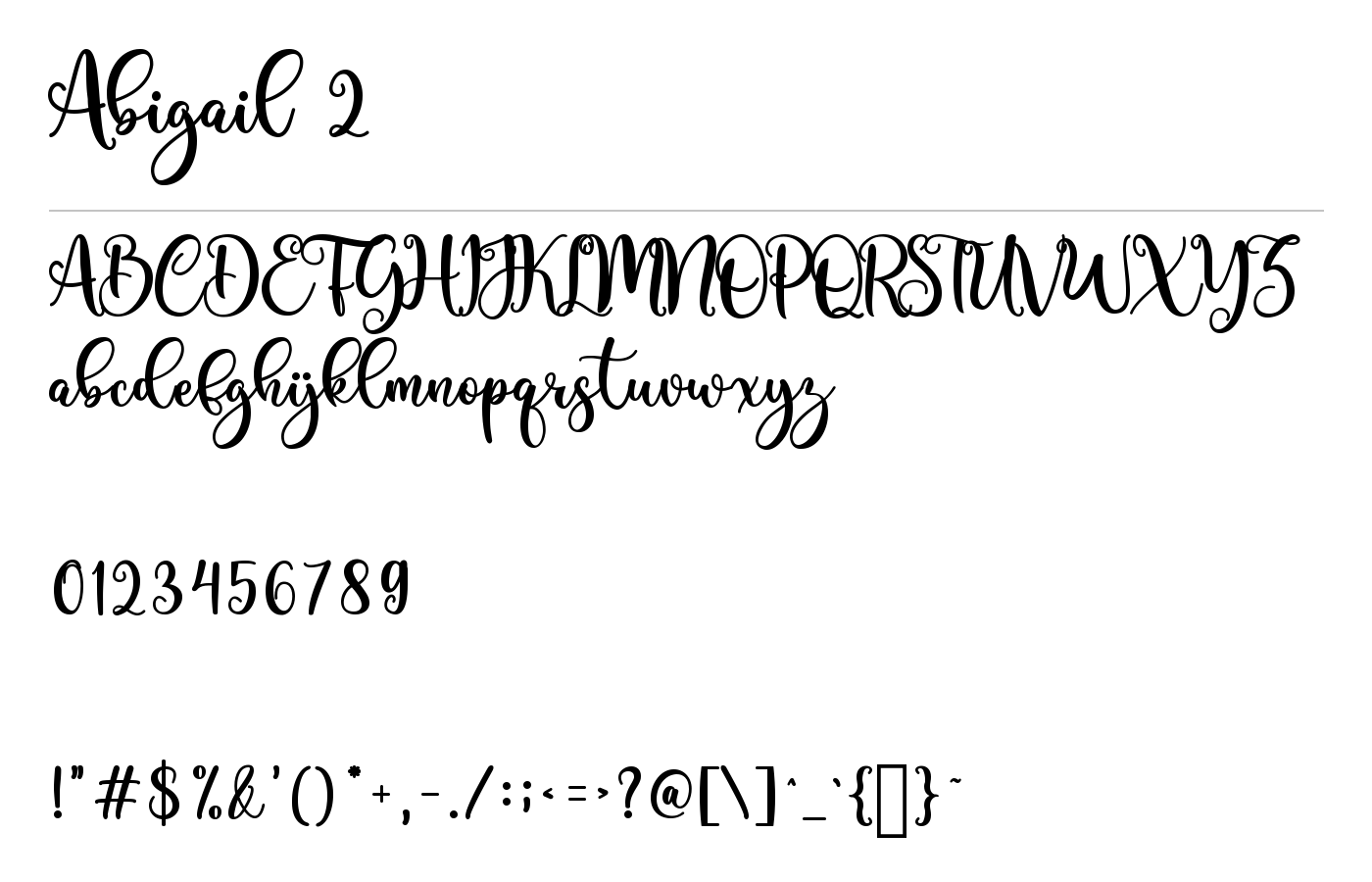
Abigail 2 is a charming script font with elegant, flowing letterforms that offer a lively and personal feel. Its moderately high contrast strokes and decorative swashes make it perfect for creative projects seeking a warm, sophisticated, and friendly touch, such as invitations, branding, and stylish headlines. The font’s readability combined with its graceful style also makes it suitable for fashion, beauty, and lifestyle designs that want to convey creativity and elegance.
Abigail 2 Font
About Abigail 2 Font